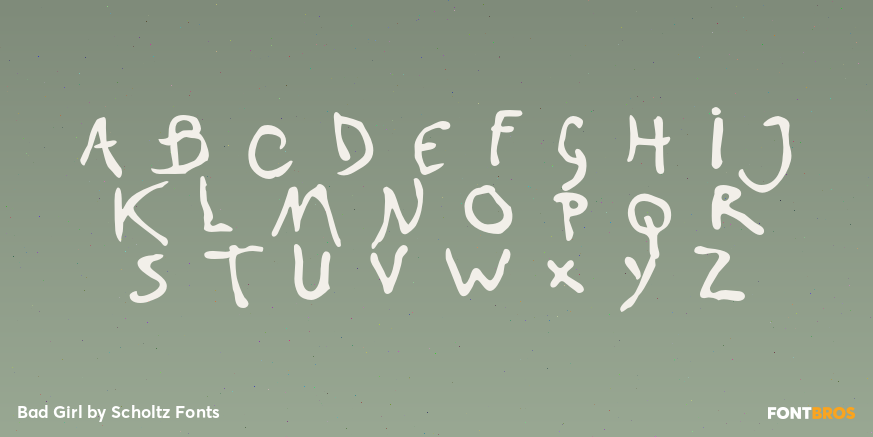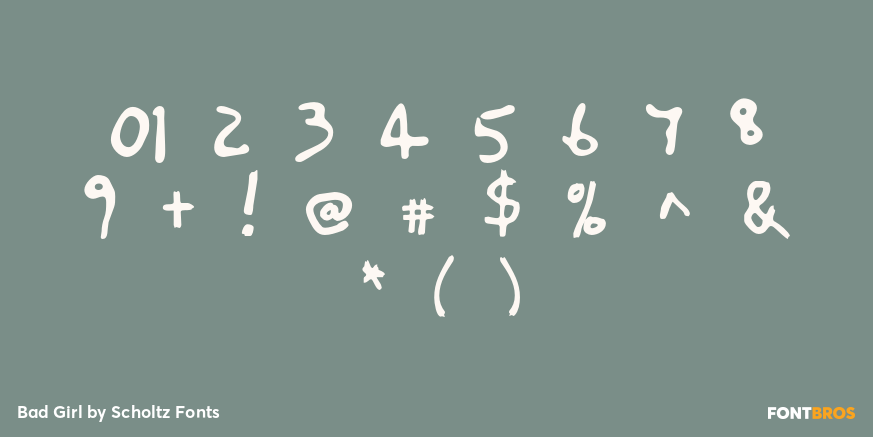
Bad Girl
Font Family by Scholtz Fonts
Bad Girl was designed to appeal to the young consumer and the young-at-heart. While clearly feminine, it manages to combine a charming na